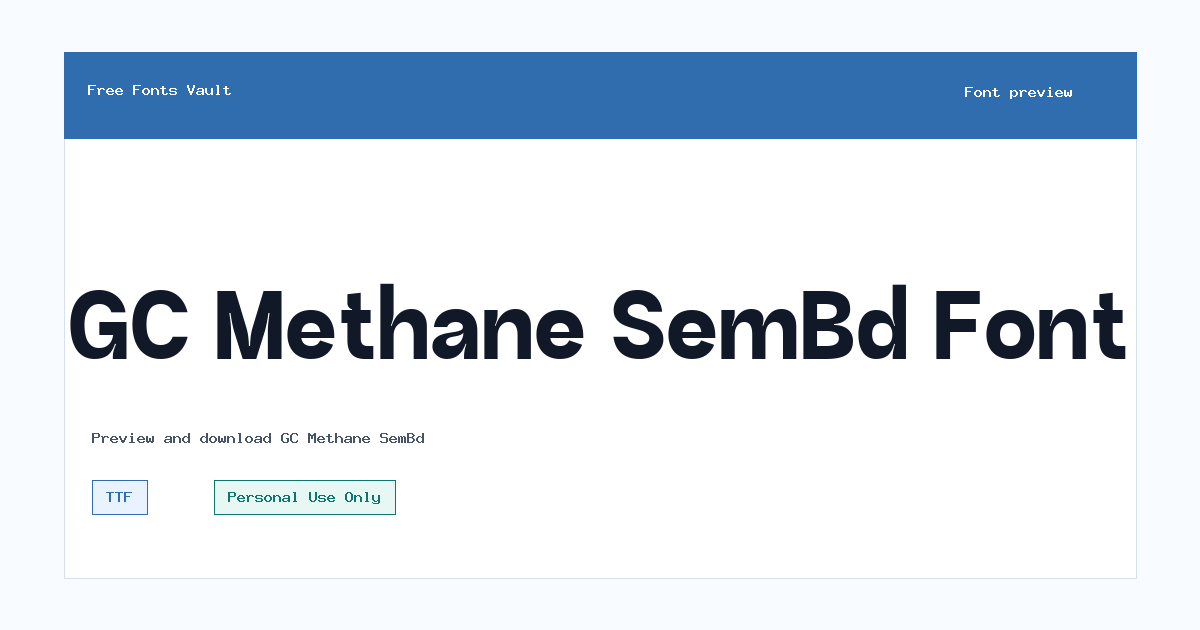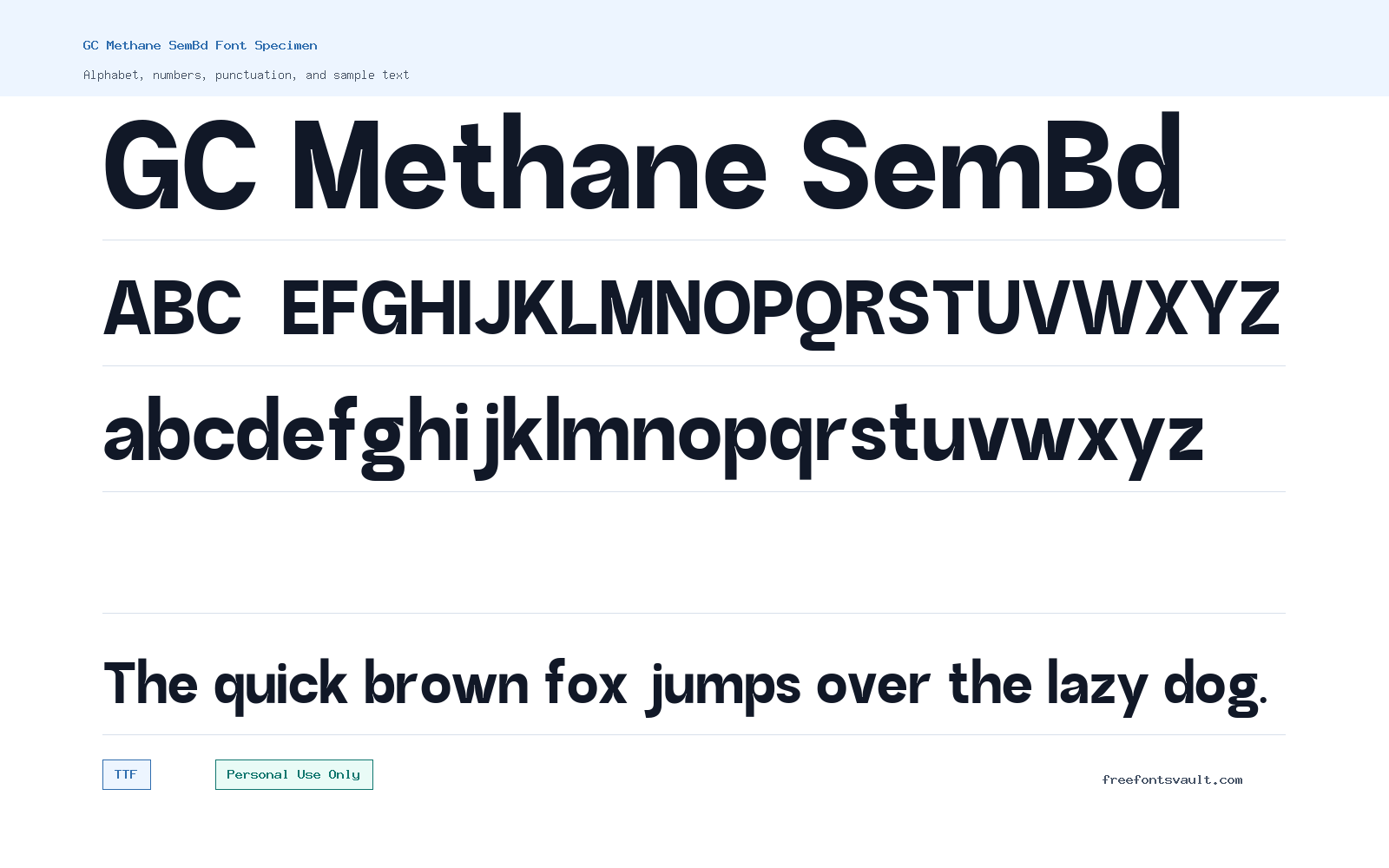
GC Methane SemBd
- Designer Ken Priska Dewirani of Glyphonic
About GC Methane SemBd
GC Methane SemBd gives visitors a heavier sans serif option for testing titles, display lines, and short blocks of text. The SemBd name and 700 weight indicate a semi-bold style, which usually makes a font feel stronger than regular text while staying less heavy than a full black or extra-bold cut. That makes it useful when you want emphasis without making every word feel oversized. Since only one normal-style TTF variant is listed, the safest way to judge it is to use the preview field with your own wording rather than relying on the name alone.
Try GC Methane SemBd with the exact text you plan to use: a short heading, a poster line, a channel name, a label, or a few words for a mockup. Semi-bold sans serif fonts often work well in compact places where the message needs to read quickly, but spacing and letter shapes can change the result a lot. Test uppercase and lowercase, numbers, punctuation, and any accented characters you need. If the preview text starts to feel crowded, increase letter spacing slightly or use the font for the main wordmark while pairing it with a lighter, simpler sans serif for supporting copy.
- Semi-bold 700 weight for stronger headings and short display text without moving into an ultra-heavy look.
- Normal style variant, useful when you need one straightforward cut for previews, mockups, and personal layouts.
- Sans serif family description, making it suitable for clean text treatments where decorative serifs are not needed.
- Personal posters, social graphics, title cards, and mockups where a firm semi-bold sans serif style fits the layout.
- Short headings, labels, names, and preview text that need more presence than regular body copy.
- Trying display typography ideas before choosing a licensed font for a public or commercial project.
- Pairing tests with a lighter sans serif for captions, descriptions, menus, or longer reading sections.
What kind of projects is GC Methane SemBd good for?
It is best tested for short text such as headings, names, labels, posters, title cards, and social graphics. For longer text, preview several lines first to make sure the semi-bold weight stays comfortable to read.
How should I pair this font?
Use GC Methane SemBd for the main heading or short emphasis, then pair it with a lighter, plain sans serif for descriptions, captions, or navigation. This keeps the layout from feeling too heavy.